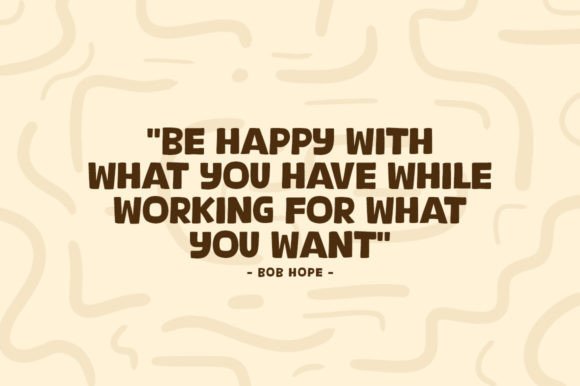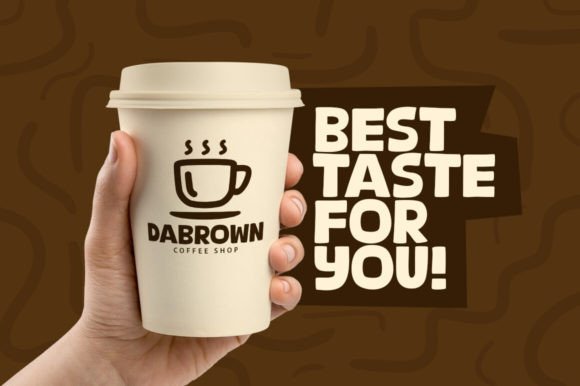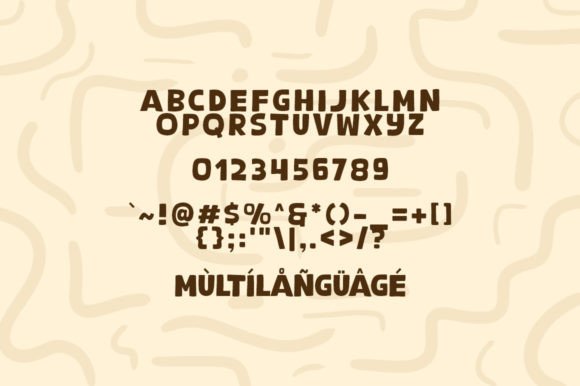
Brown Beige Font: Elevate Your Designs with a Modern and Cute Display Font
Are you a designer or crafter looking for a font that can add a touch of modernity and cuteness to your projects? Look no further than the Brown Beige Font! This versatile display font is perfect for a wide range of applications, from posters and logos to magazines, book covers, and banners. In this article, we’ll explore the features and benefits of the Brown Beige Font, and show you how to use it to create stunning designs that stand out.
What is Brown Beige Font?
Brown Beige Font is a modern and cute display font that is designed to add a touch of elegance and sophistication to your designs. Its unique and stylish lettering makes it perfect for creating eye-catching headlines, titles, and captions. The font is highly legible, making it suitable for use in a variety of contexts, from digital media to print materials.
Key Features of Brown Beige Font
- Modern and Cute Design: The Brown Beige Font features a modern and cute design that is sure to capture the attention of your audience.
- Highly Legible: The font is highly legible, making it perfect for use in a variety of contexts, from digital media to print materials.
- Versatile: The Brown Beige Font is highly versatile and can be used in a wide range of applications, from posters and logos to magazines, book covers, and banners.
- Easily Customizable: The font is easily customizable, allowing you to adjust the size, color, and style to suit your design needs.
Benefits of Using Brown Beige Font
There are many benefits to using the Brown Beige Font in your designs. Here are just a few:
- Adds a Touch of Modernity: The Brown Beige Font adds a touch of modernity and sophistication to your designs, making them stand out from the crowd.
- Increases Readability: The font’s high legibility makes it easy for your audience to read and understand your message.
- Versatile: The Brown Beige Font is highly versatile and can be used in a wide range of applications, making it a great addition to your font library.
- Easy to Use: The font is easy to use and can be easily integrated into your design workflow.
How to Use Brown Beige Font
Using the Brown Beige Font is easy! Here are a few tips to get you started:
- Pair it with Other Fonts: The Brown Beige Font pairs well with other fonts, making it easy to create stunning font combinations.
- Adjust the Size and Color: Adjust the size and color of the font to suit your design needs.
- Use it in a Variety of Contexts: Use the Brown Beige Font in a variety of contexts, from digital media to print materials.
Examples of Brown Beige Font in Use
Here are a few examples of the Brown Beige Font in use:
- Posters: Use the Brown Beige Font to create eye-catching posters that grab the attention of your audience.
- Logos: Use the font to create stunning logos that reflect your brand’s personality.
- Magazines: Use the Brown Beige Font to create engaging magazine layouts that are easy to read.
- Book Covers: Use the font to create stunning book covers that capture the essence of your book.
- Banners: Use the Brown Beige Font to create eye-catching banners that grab the attention of your audience.
In conclusion, the Brown Beige Font is a modern and cute display font that is perfect for designers and crafters looking to add a touch of elegance and sophistication to their designs. Its highly legible and versatile design makes it suitable for use in a wide range of applications, from posters and logos to magazines, book covers, and banners. With its ease of use and customization options, the Brown Beige Font is a great addition to any font library.